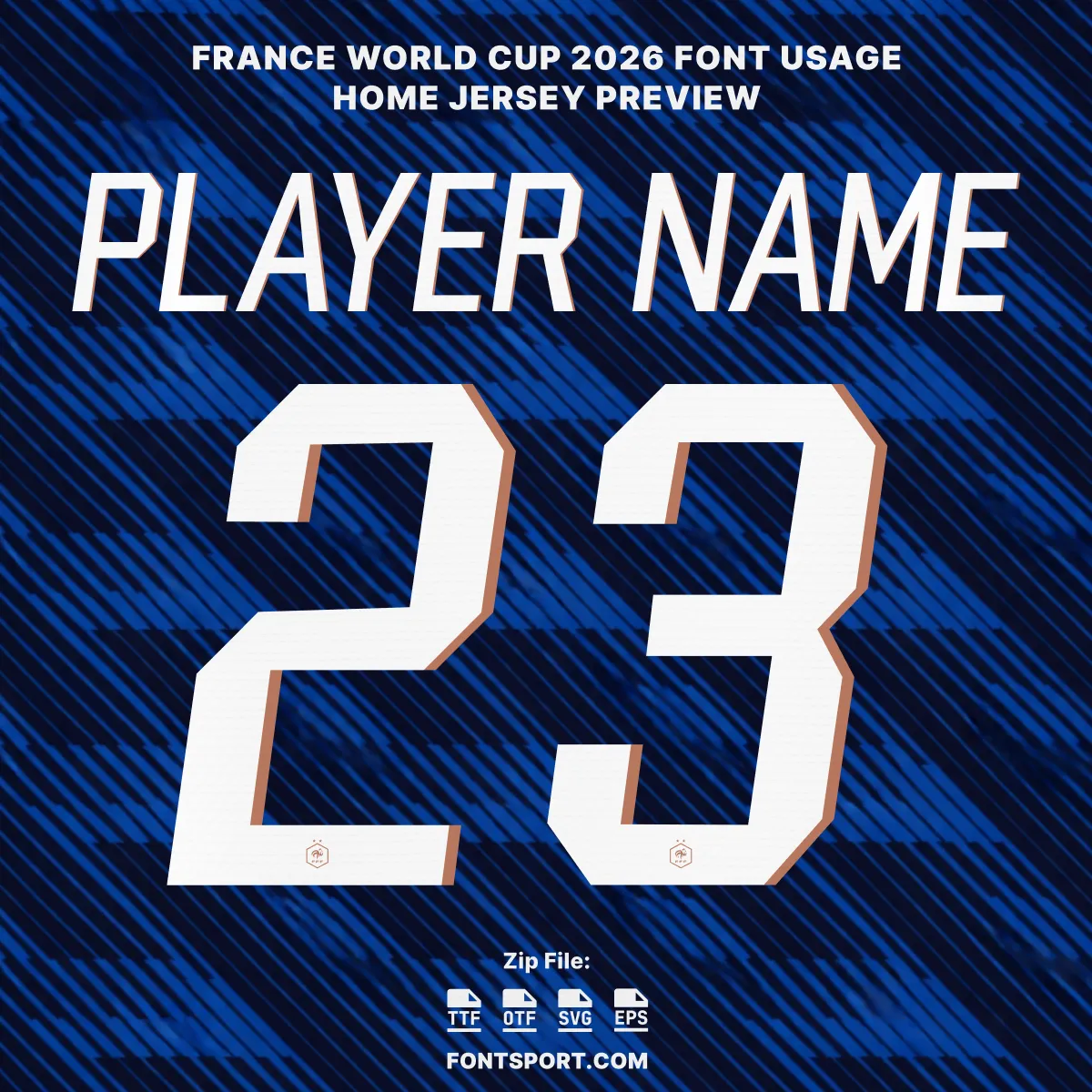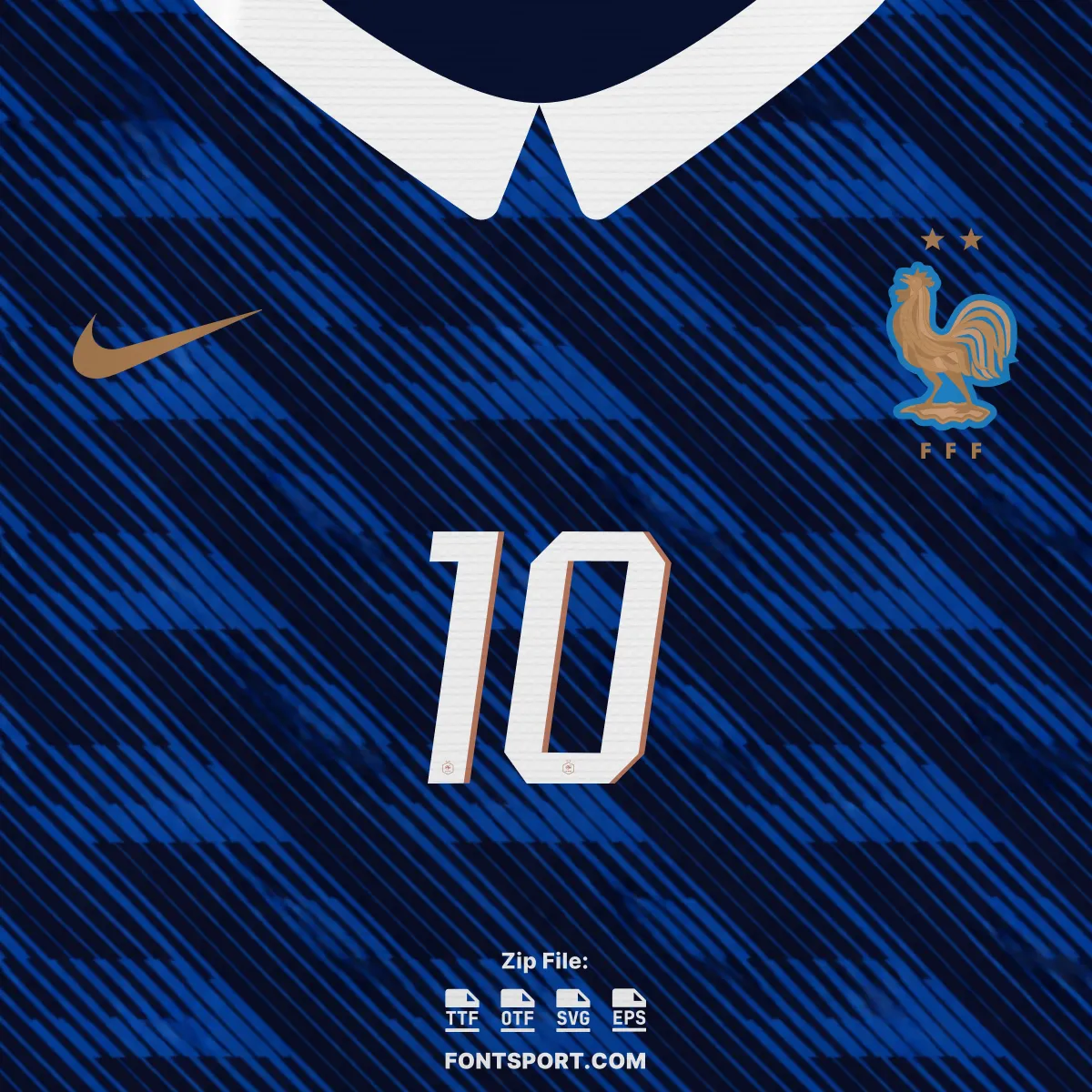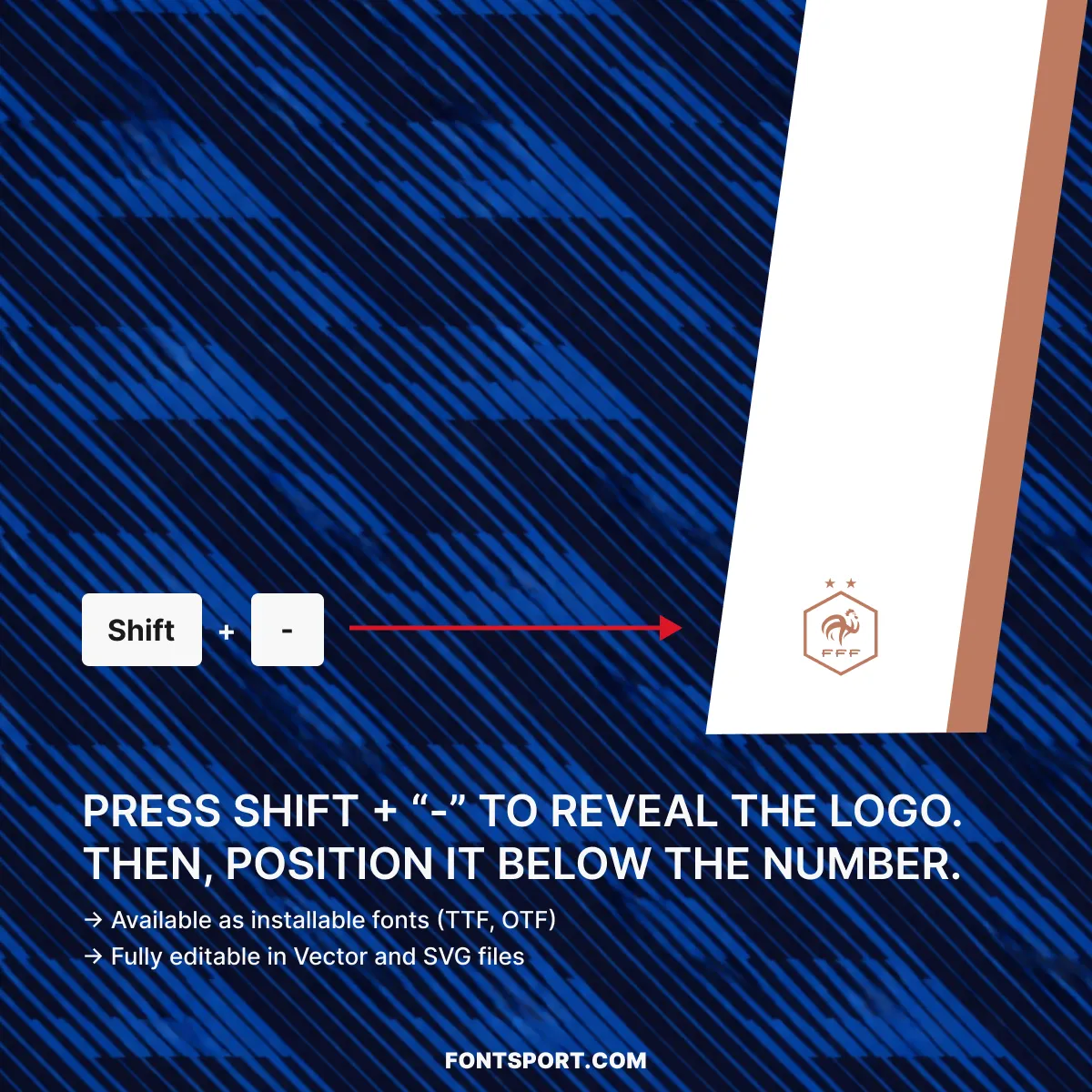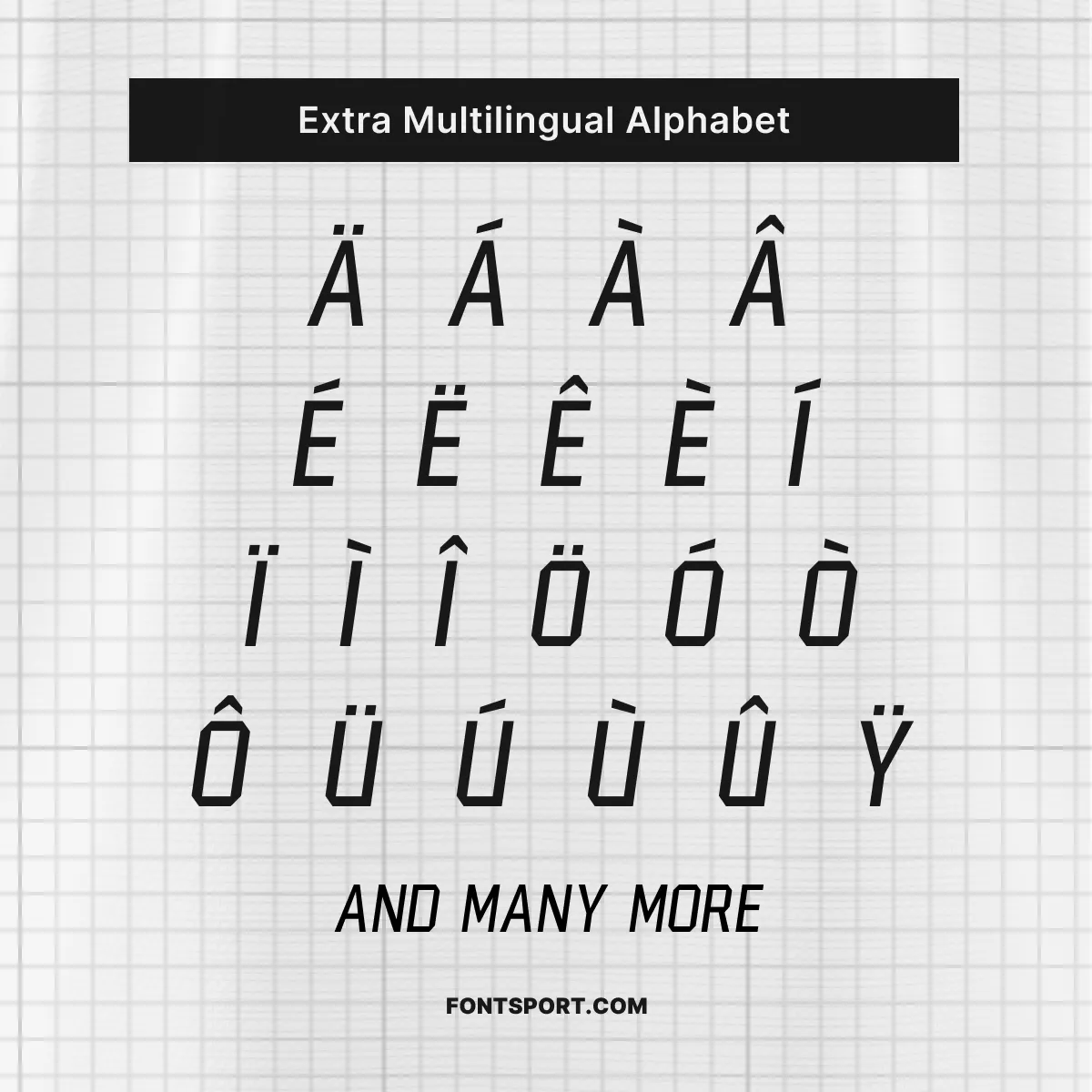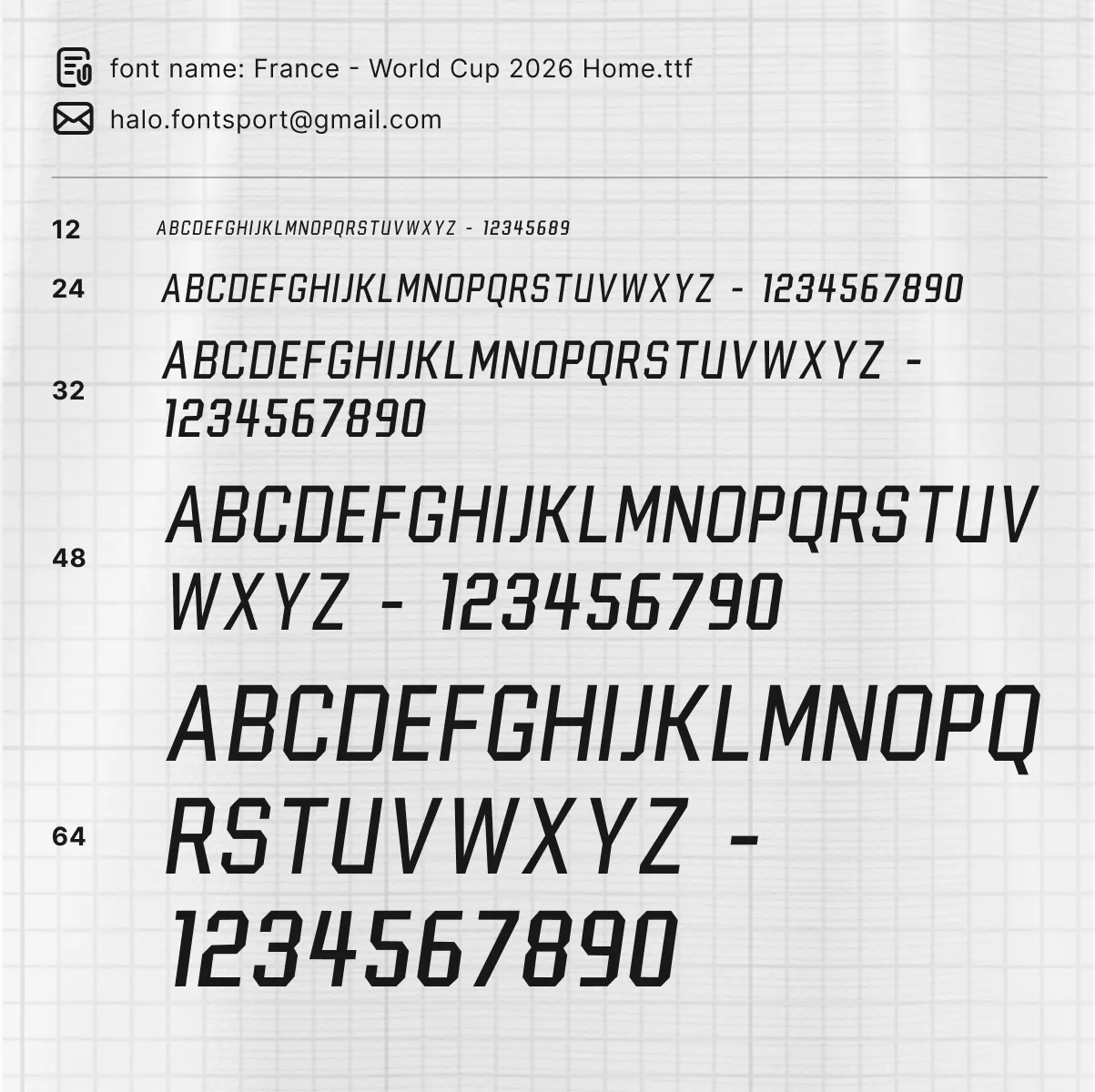
France World Cup 2026 Home Font Kit – Authentic Les Bleus Typeface
Few national teams carry the visual weight that France brings to a major tournament. The France World Cup 2026 Home Font Kit recreates the season-accurate letterforms and numbers worn by Les Bleus as they pursue a third World Cup title on North American soil. Every character has been studied and crafted to match the proportions, stroke weight, and spacing of the lettering seen on the pitch.
Furthermore, this font kit is built for the moment. France enter the tournament as genuine favourites, with a squad headlined by Kylian Mbappé, Ousmane Dembélé, and William Saliba — and their iconic deep blue shirt is already generating serious conversation among designers and football fans worldwide.
Key Visual Identity of the Font
Typography Style
The France 2026 home font carries a confident, forward-leaning italic stance — compact, bold, and built for legibility at jersey scale. The letterforms are clean with sharp terminal cuts, reflecting the precision and speed associated with this French squad.
Number Design
The numerals are particularly distinctive: wide-bodied with a strong oblique axis that gives them a kinetic energy on the shirt. In particular, the number style sits flush with Nike’s high-performance aesthetic — authoritative without being decorative.
Crest Glyph
The kit includes the FFF hexagonal crest glyph, accessible within the font via Shift + “–”. Position it beneath the number to replicate the exact shirt-accurate presentation seen on France’s 2026 home jersey.
- ✅ Full uppercase A–Z & numbers 0–9 in France’s authentic 2026 World Cup style
- ✅ FFF crest logo glyph (Shift + “–”) for complete shirt-accurate presentation
- ✅ Multilingual Latin character support including diacritics (Ä, É, Ê, Ü, Ñ and more)
The France World Cup 2026 Home Font Kit is an independent typeface created by the design team at Fontsport. It is not produced or endorsed by the Fédération Française de Football, Nike, or FIFA — but every character has been carefully studied and recreated to match the proportions, weight, and structure of the lettering worn on France’s 2026 World Cup home shirt.